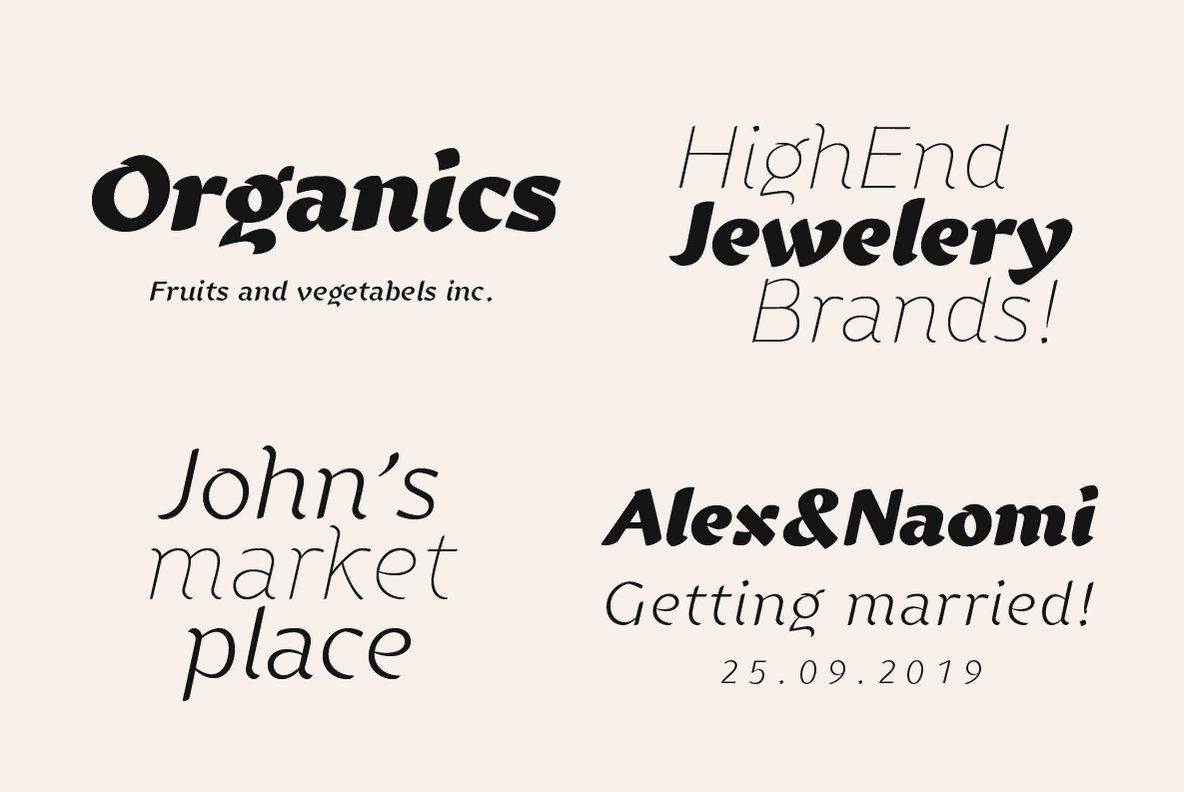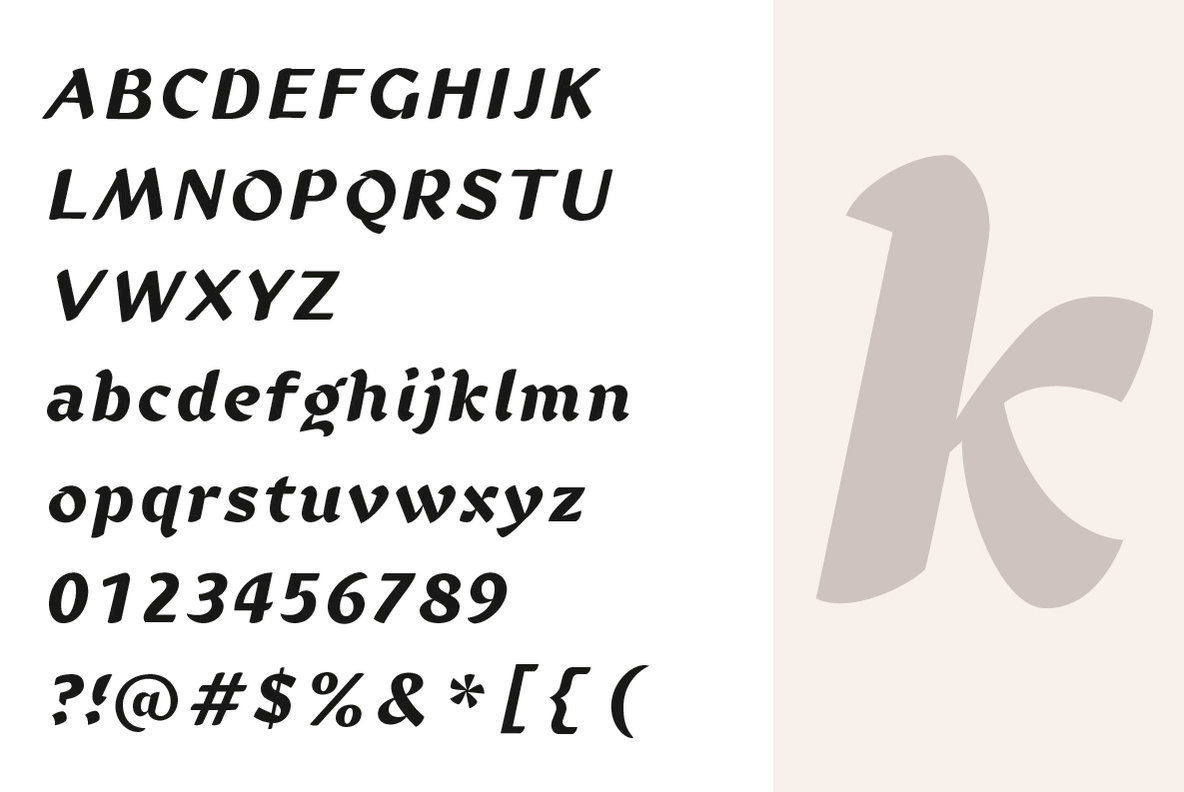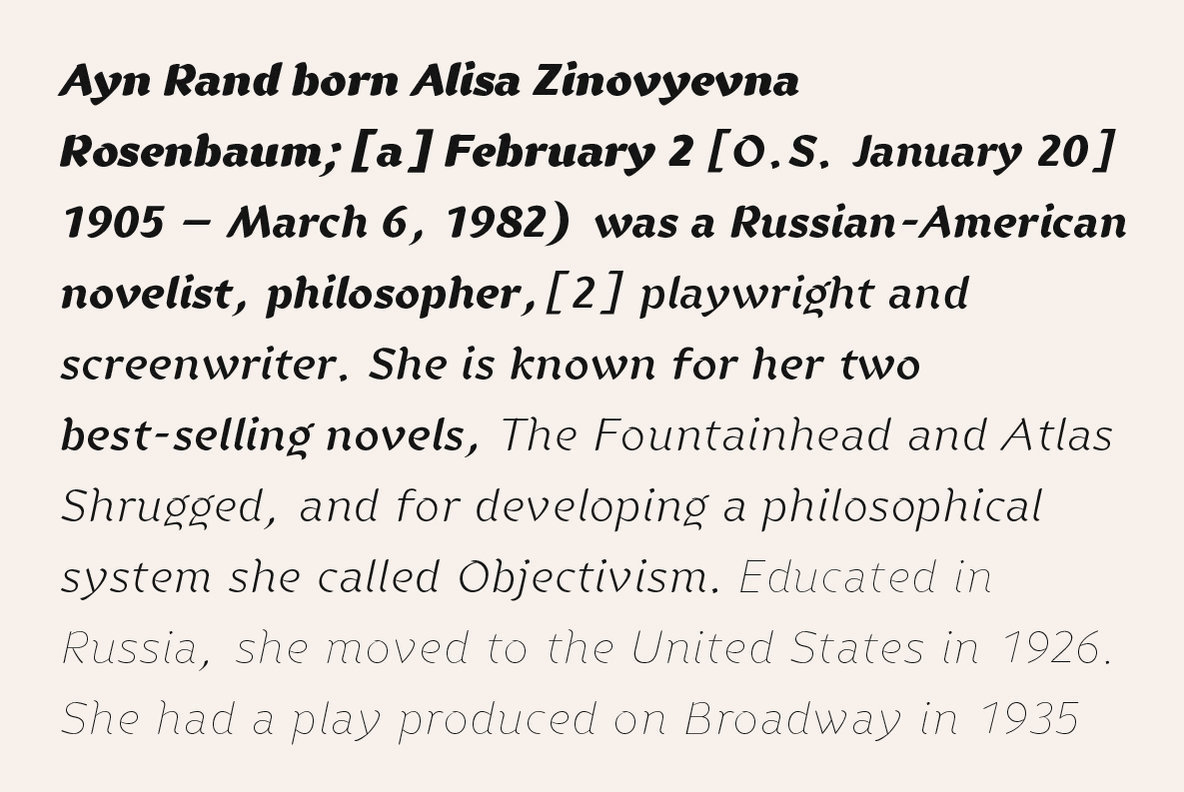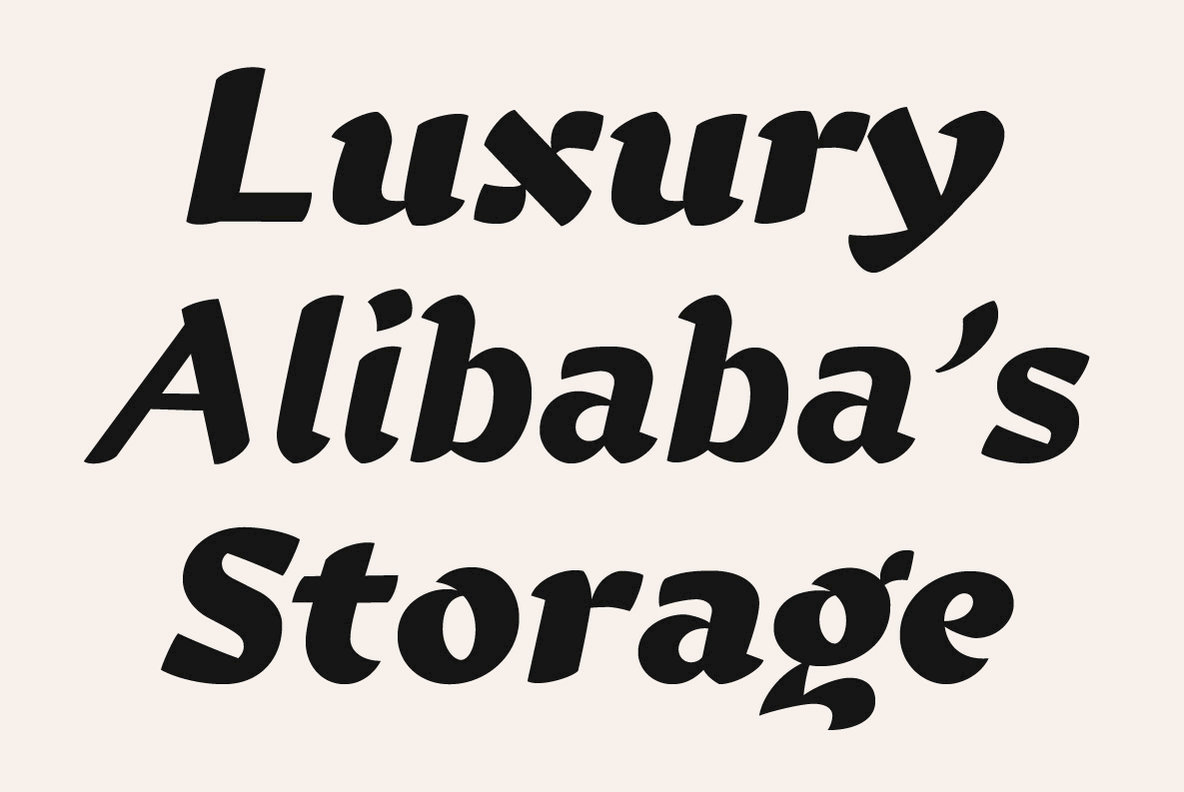
YE Benjamin Font
The YE Benjamin typeface, crafted by Yinon Ezra, offers a seamless interplay between humanistic elements and a lively, clear statement. With its natural aesthetic, it remains true to the essence of material and form, making it a compelling choice for graphic designers seeking authenticity in their work.YE Benjamin: A Typeface of Clarity and Expression